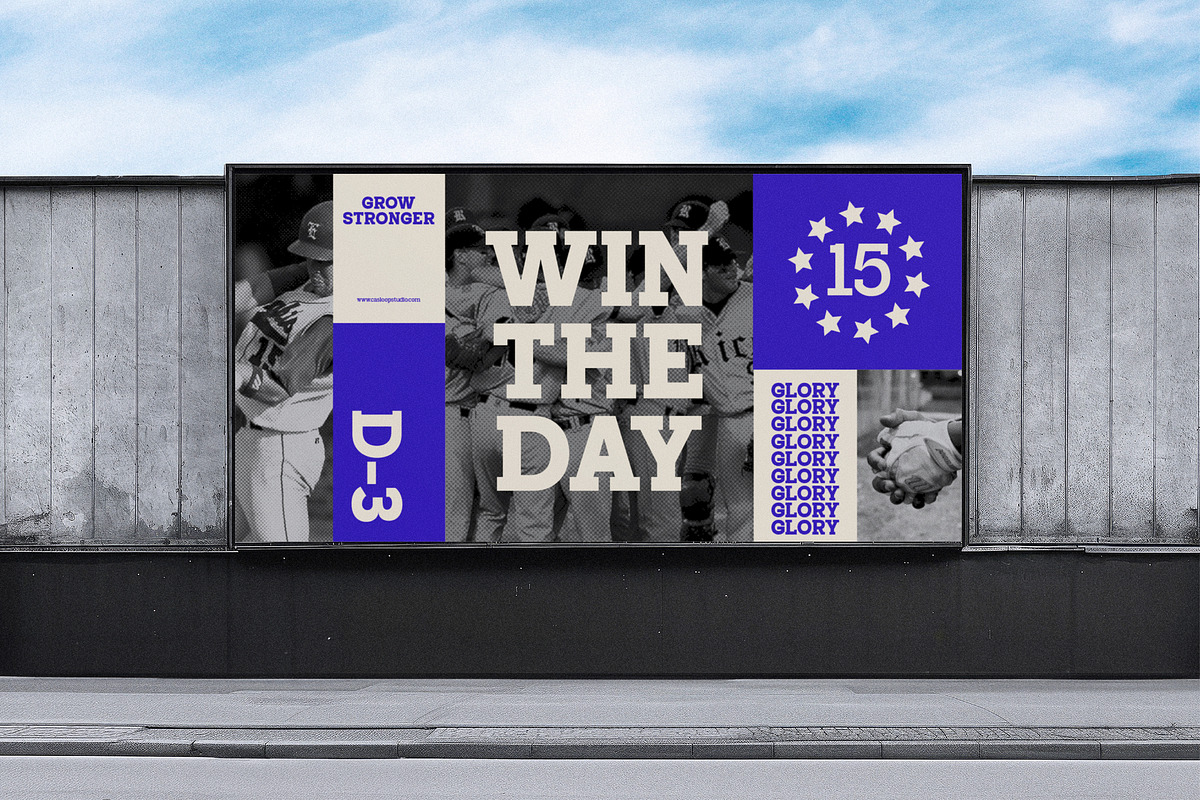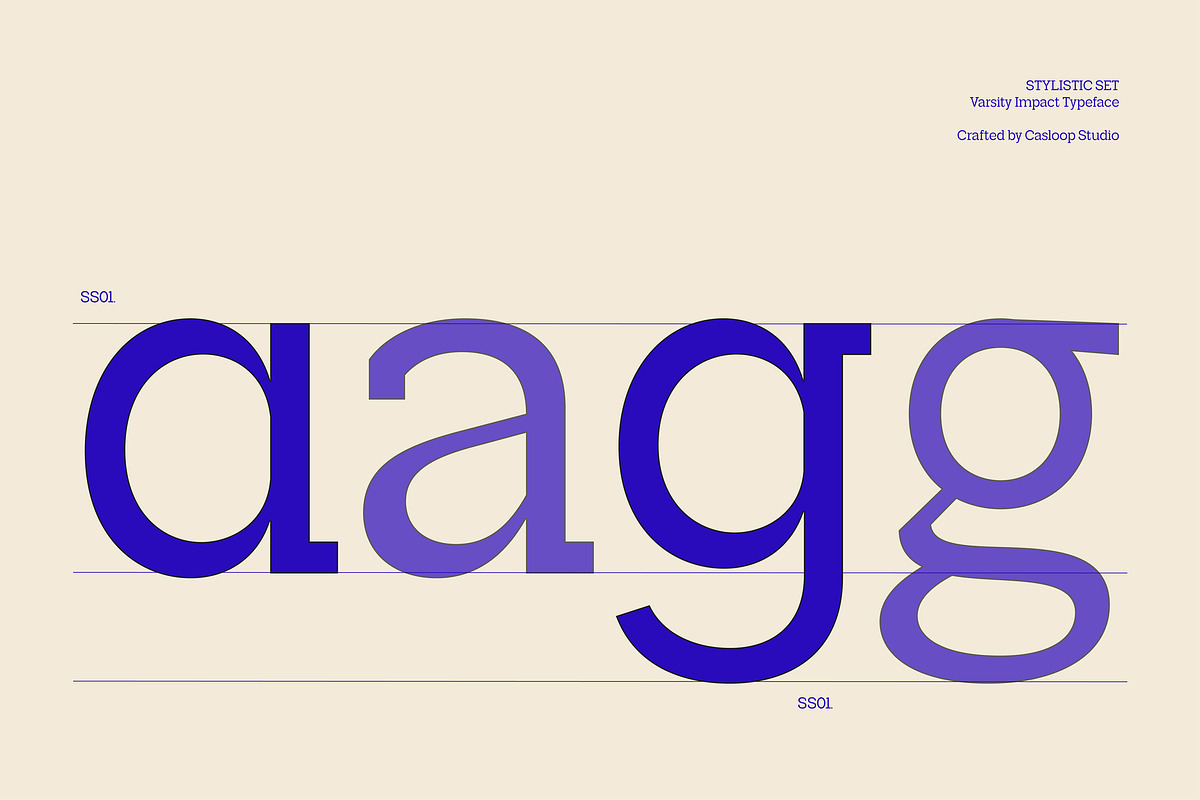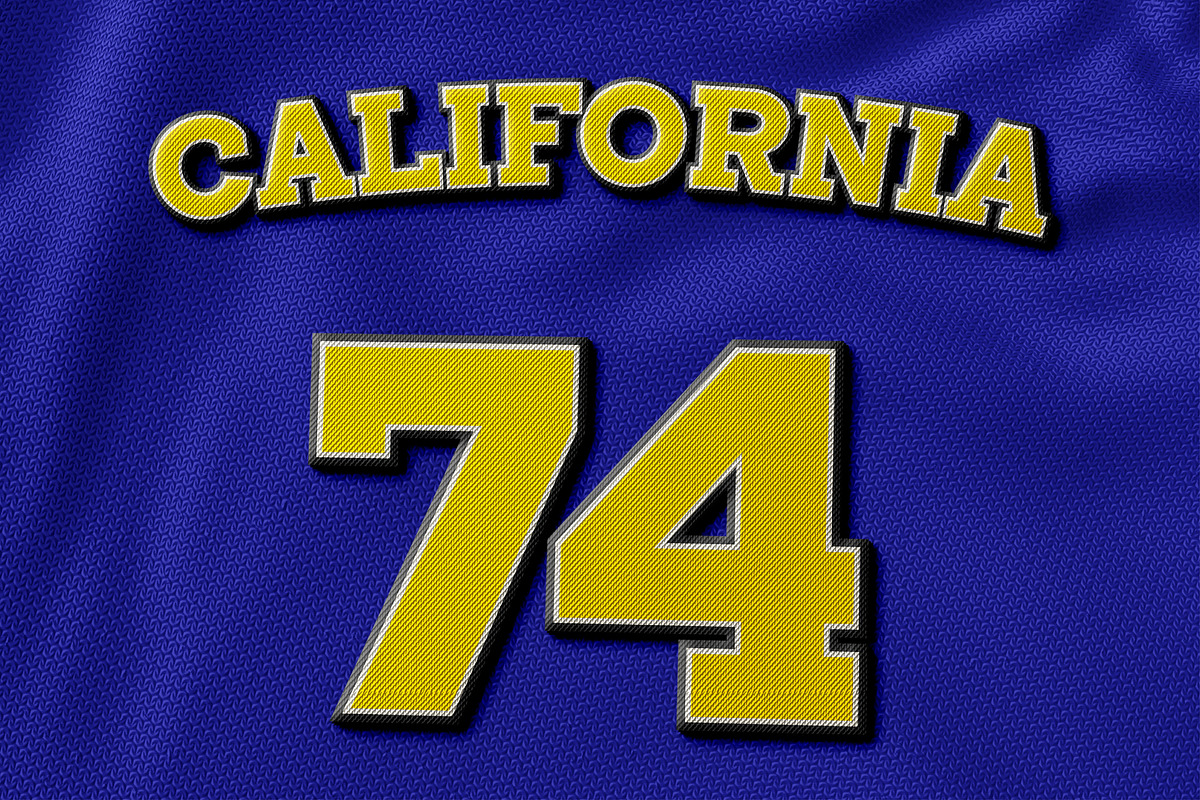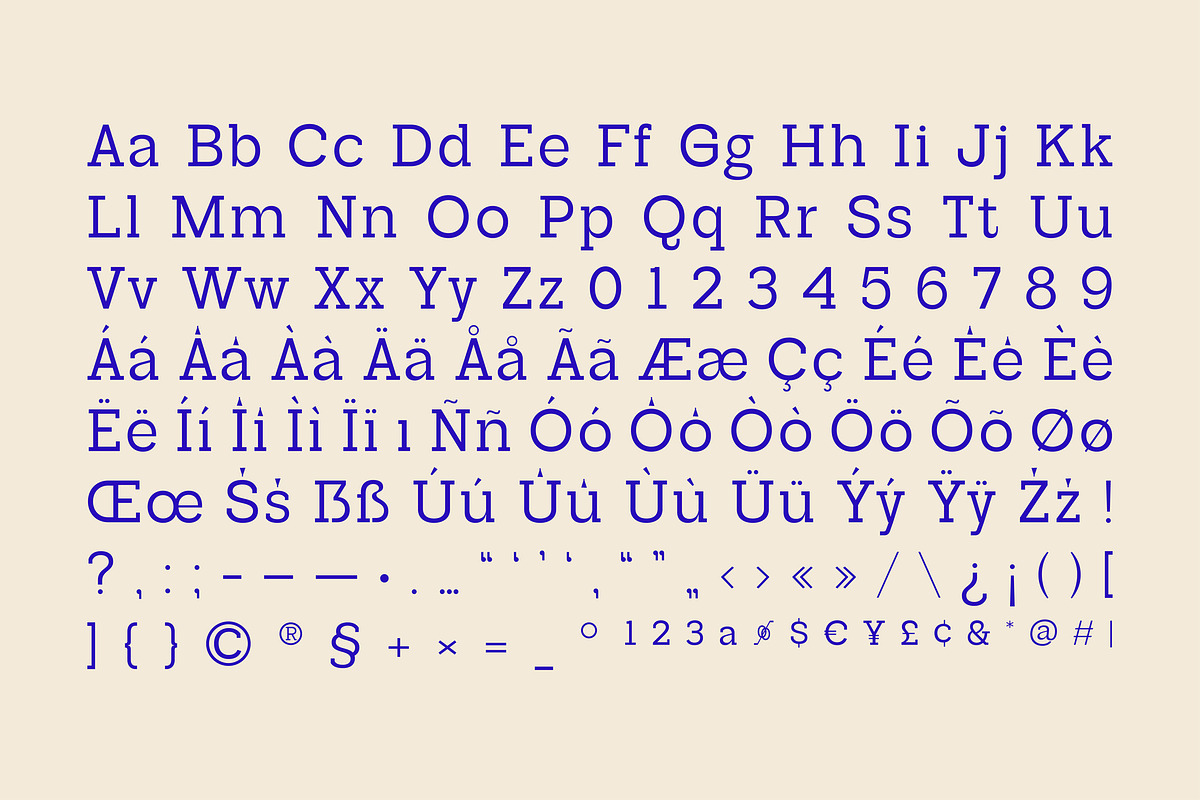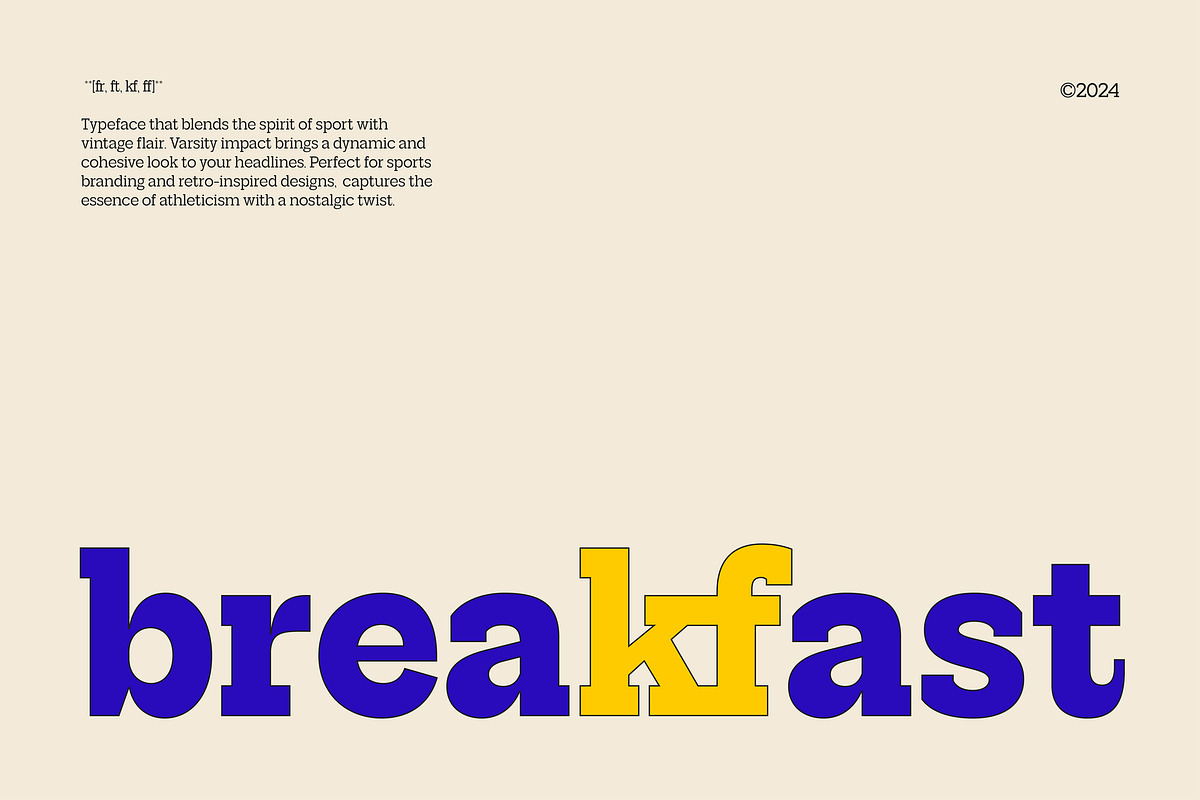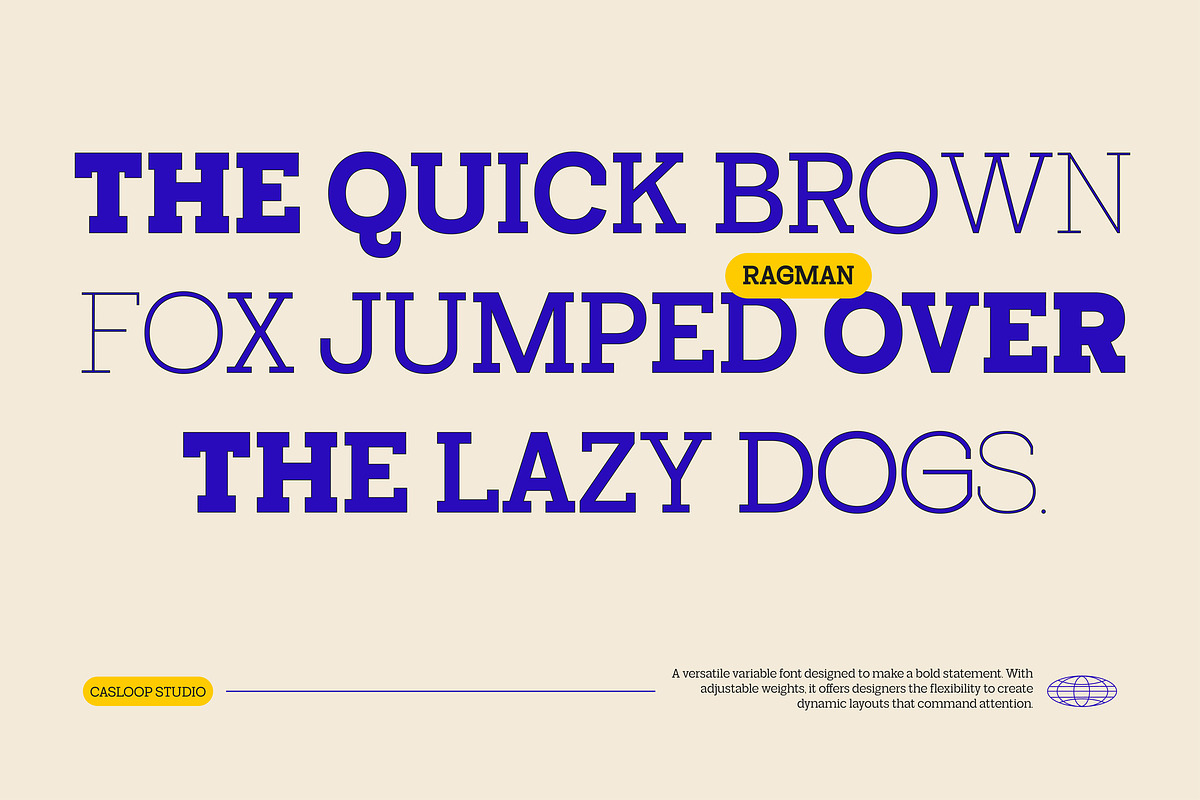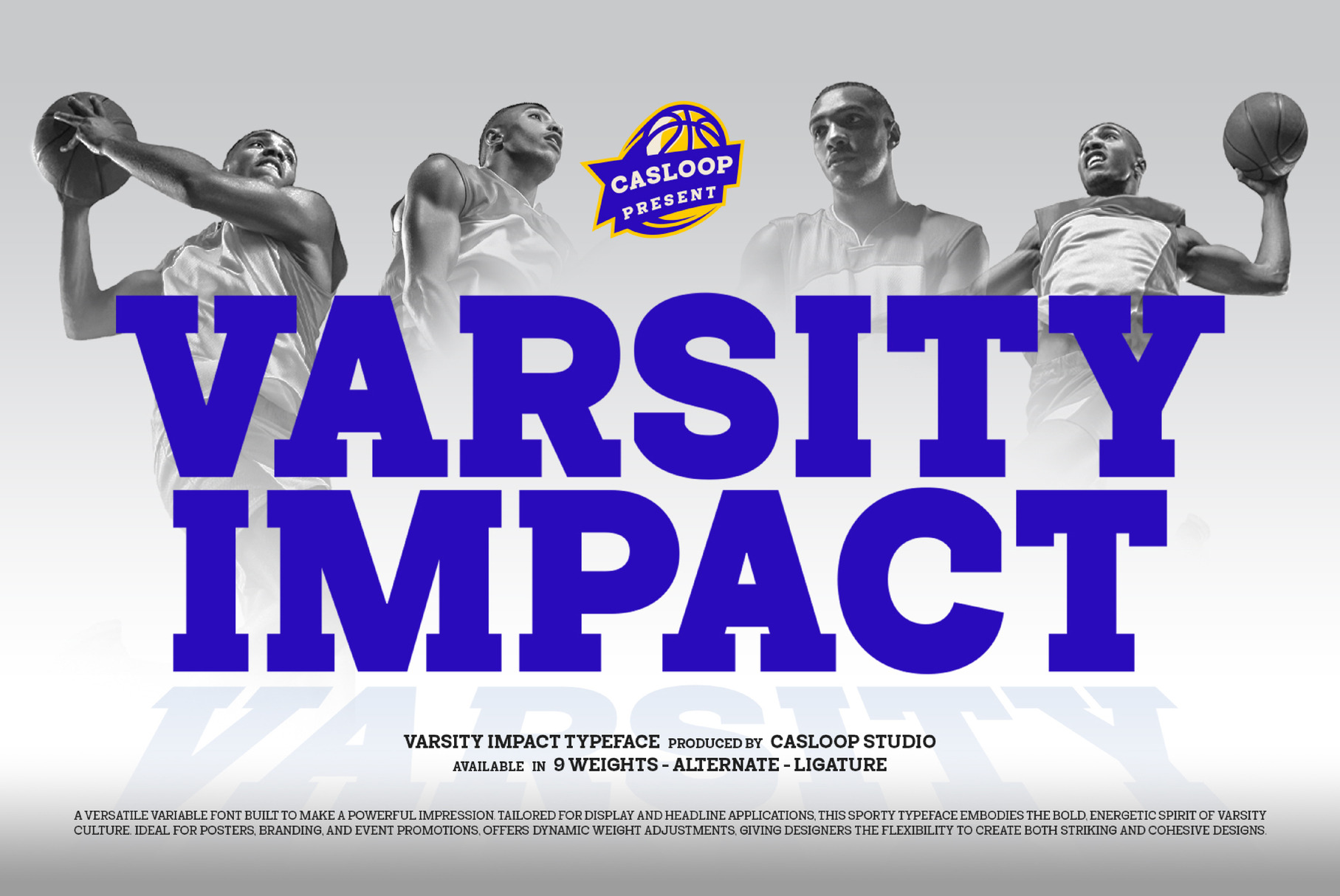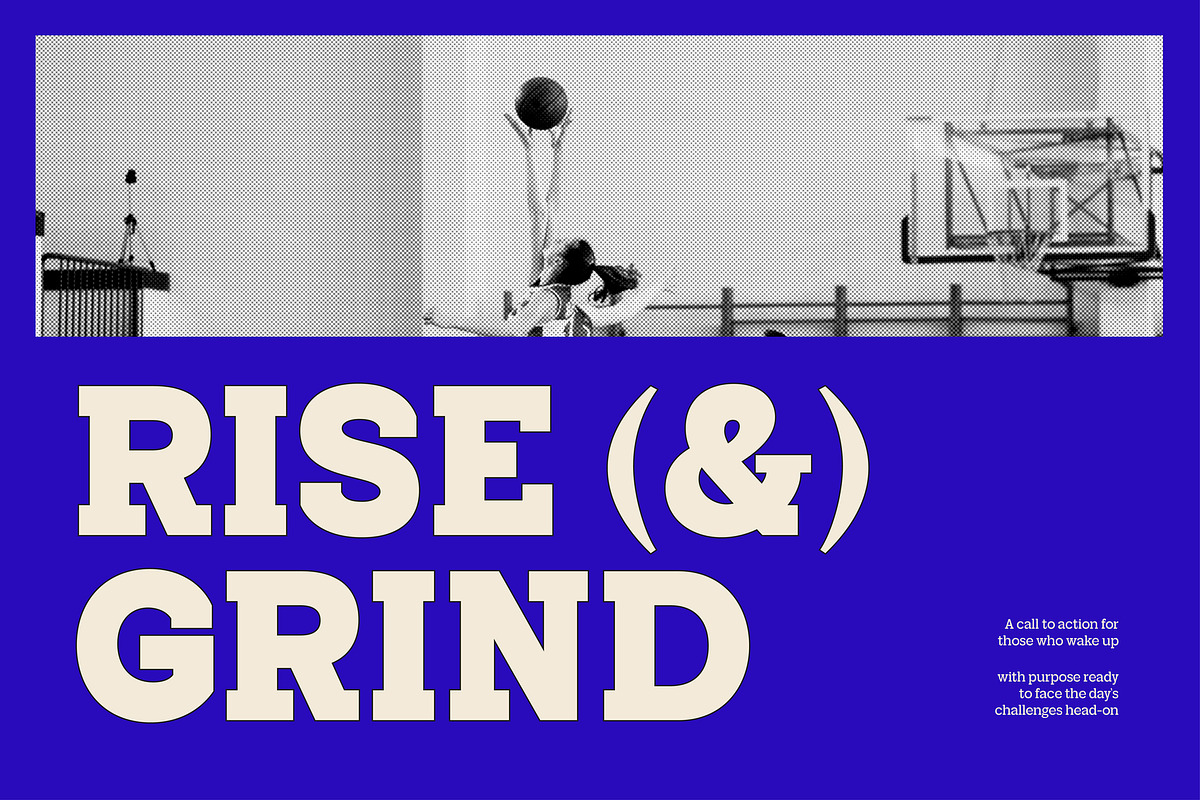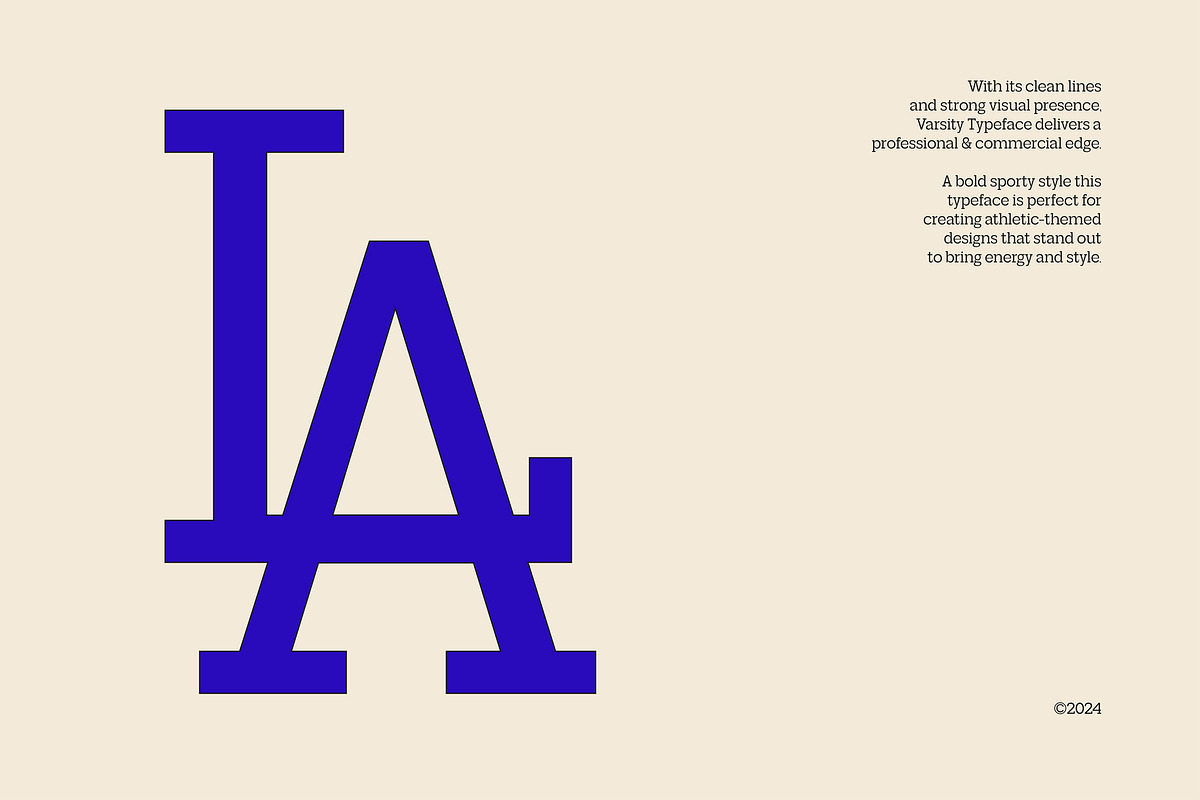
Varsity Impact - Sports 9 Fonts
Introducing Varsity Impact, the quintessential font for those who crave a blend of modern flair and dynamic versatility. This Sport Slab Serif typeface stands out with its distinctive, contemporary design, perfect for everything from university sports branding to athletic apparel.
Varsity Impact offers a premium touch with its strong, legible characters, ensuring your text makes a memorable impression. Whether you're designing campus posters, digital media visuals, or even packaging for automotive gear, this font delivers a quirky yet refined aesthetic that commands attention.
Its unique combination of bold and blocky elements makes it ideal for a range of uses—from sporty jerseys and college branding to construction signage and motion graphics.
The font’s varied weights, from Thin to Black, and its adaptable font family and variable font options, provide you with endless creative flexibility. Elevate your project with the modern, Neo Classic style of Varsity Impact. Embrace its strong, athletic charm and let your text stand out with originality and impact.